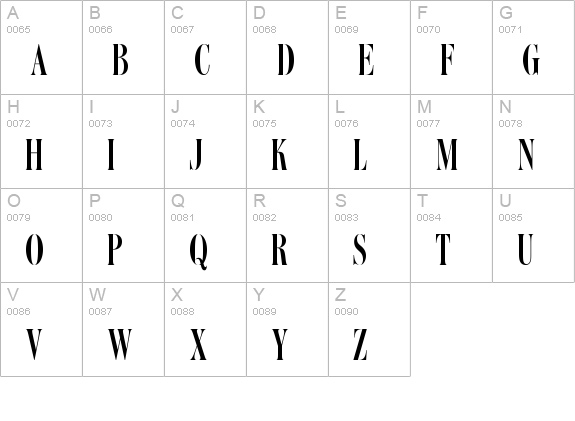
Romantica Std Condensed is a distinctive, condensed-width variant in the Romantica typeface family \xE2\x80\x94 well suited to design and typography projects.
Romantica Std Condensed font exudes elegance and sophistication with its slender and stylish design. This font is perfect for adding a touch of romance and charm to your projects, whether it be invitations, greeting cards, or branding materials. The condensed style of Romantica Std gives it a modern and sleek appearance, making it versatile for a wide range of design purposes. Best of all, Romantica Std Condensed font is available for free download at FontsMarket.com. By downloading this font, you can elevate your designs with its graceful and refined aesthetic. Don't miss out on the opportunity to enhance your projects with the timeless beauty of Romantica Std Condensed font, now easily accessible for free at FontsMarket.com.